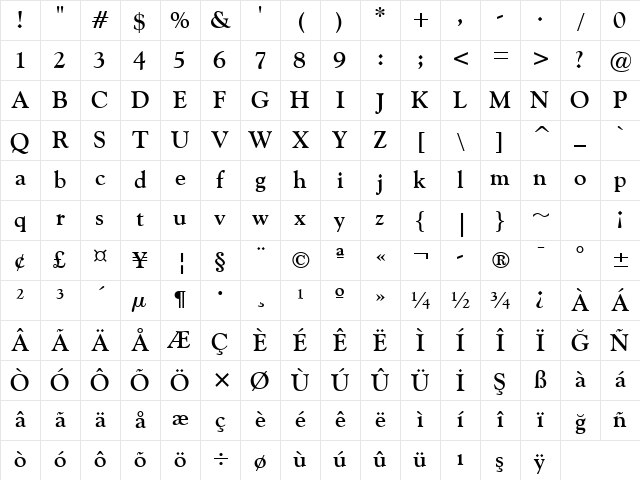
Goudy Old Style Bold BT Regular
Design Context for Goudy Old Style Bold BT
Goudy Old Style Bold BT is a composed and adaptable typeface that performs quietly and consistently across a wide range of design contexts. Its bold stroke weight gives it real presence on the page.